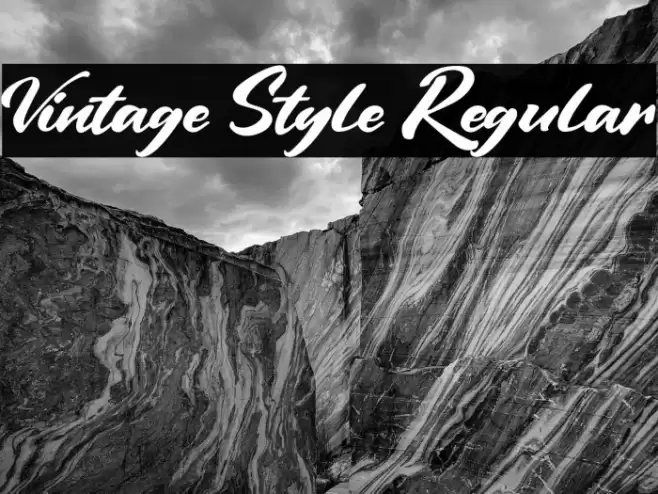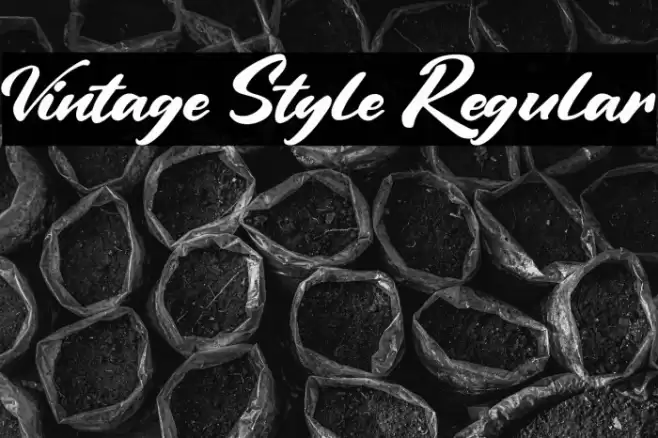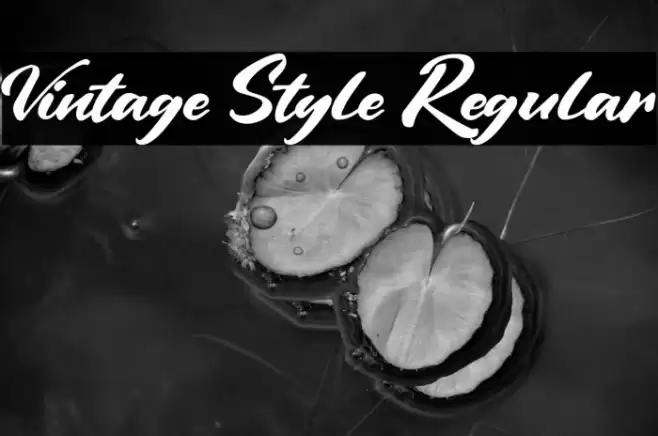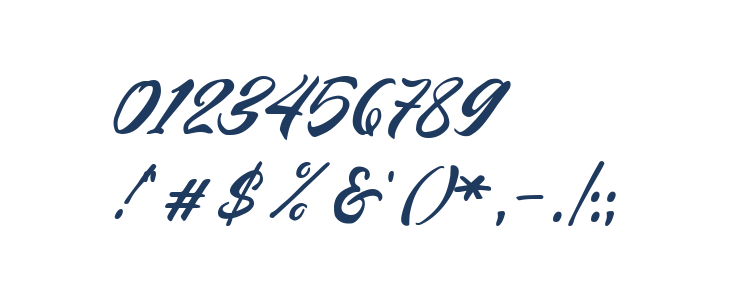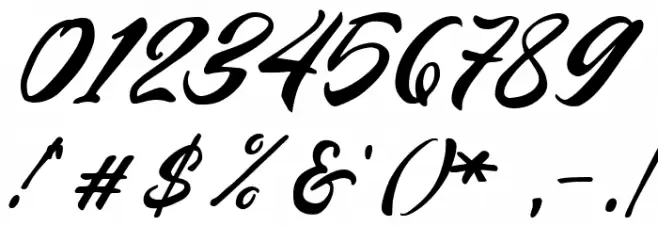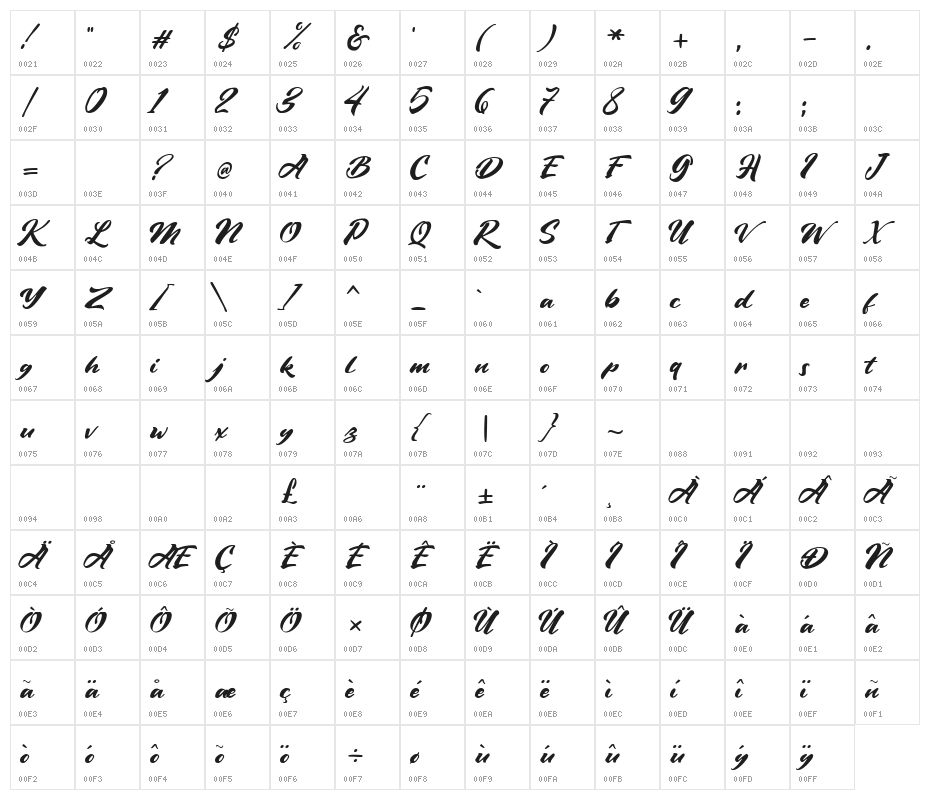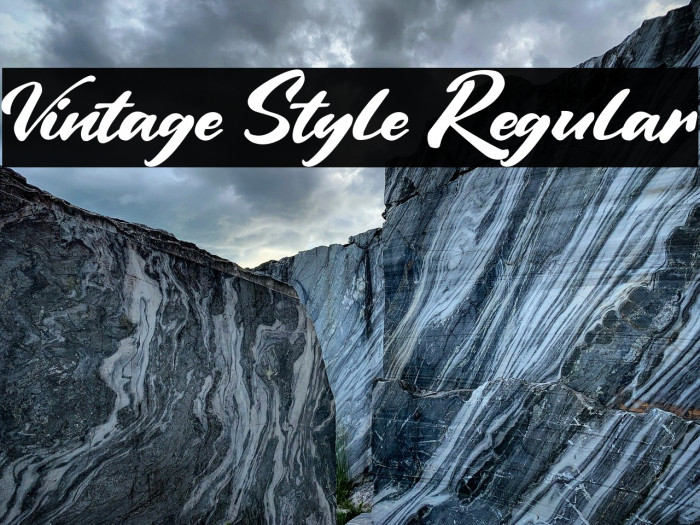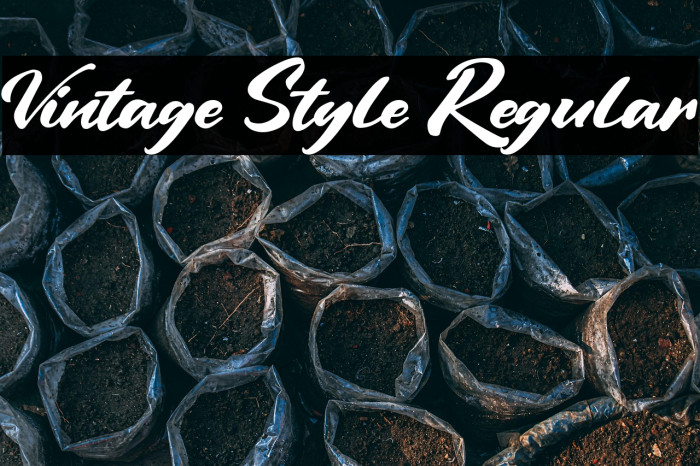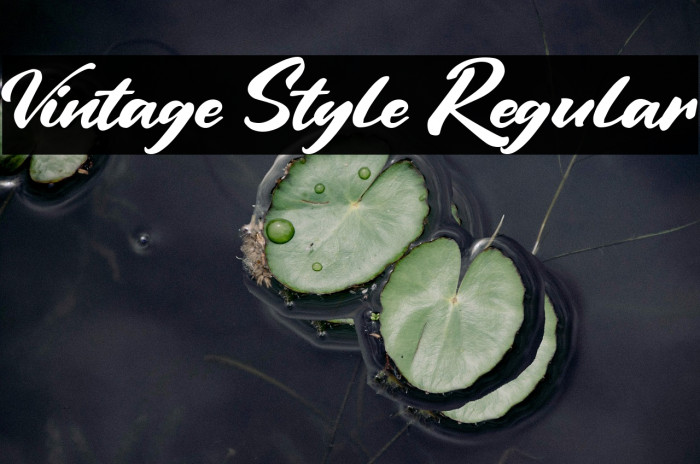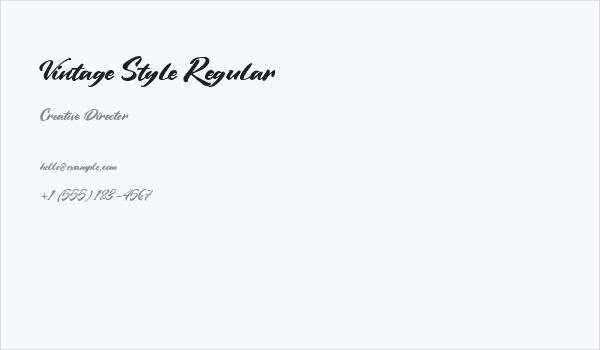
Vintage Style Regular Font
Vintage Style Regular Description
This font exudes a classic, vintage charm with its flowing, cursive script style. The letters are elegantly connected, creating a sense of fluidity and movement. The uppercase characters are bold and prominent, while the lowercase letters maintain a graceful, slightly slanted appearance. The numerals and special characters are designed to complement the overall script style, adding to the cohesive look. This font is perfect for projects that require a touch of nostalgia and elegance, such as invitations, branding, and decorative signage.
A vintage-style cursive script font with elegant, flowing characters from Regular fonts.
- Font: Vintage Style Regular
- Proposed Projects: Ideal for wedding invitations, vintage-themed branding, decorative signage, and elegant logo designs.
- Overall Style: Vintage
- Use Case: Logos, Invitations, Decorative Signage